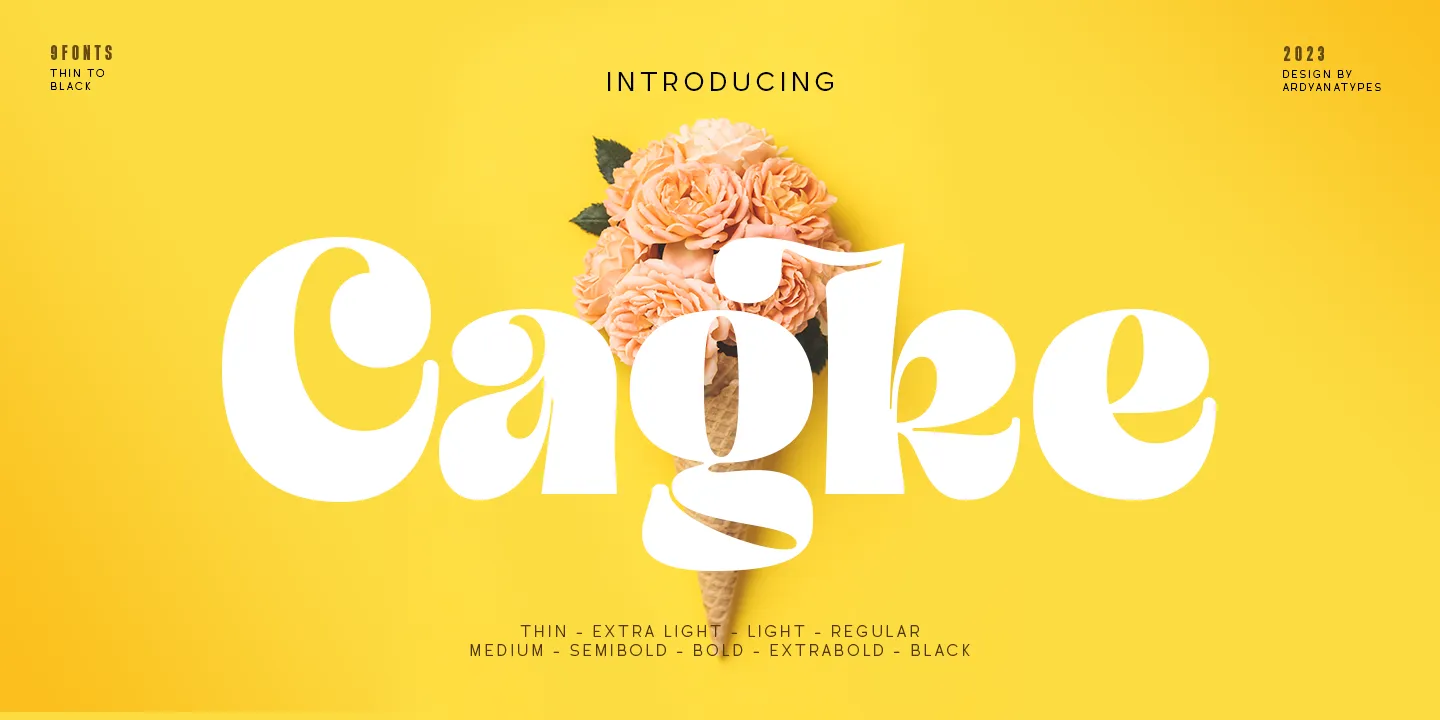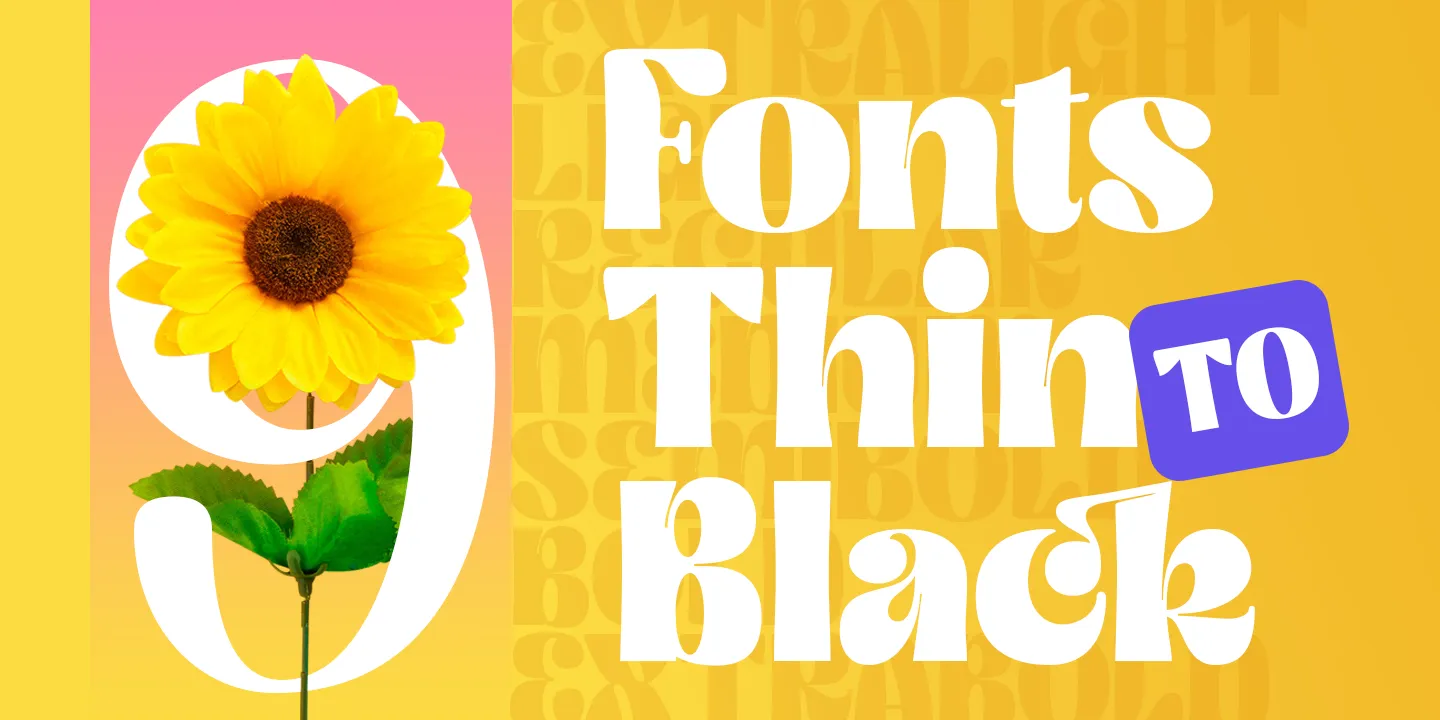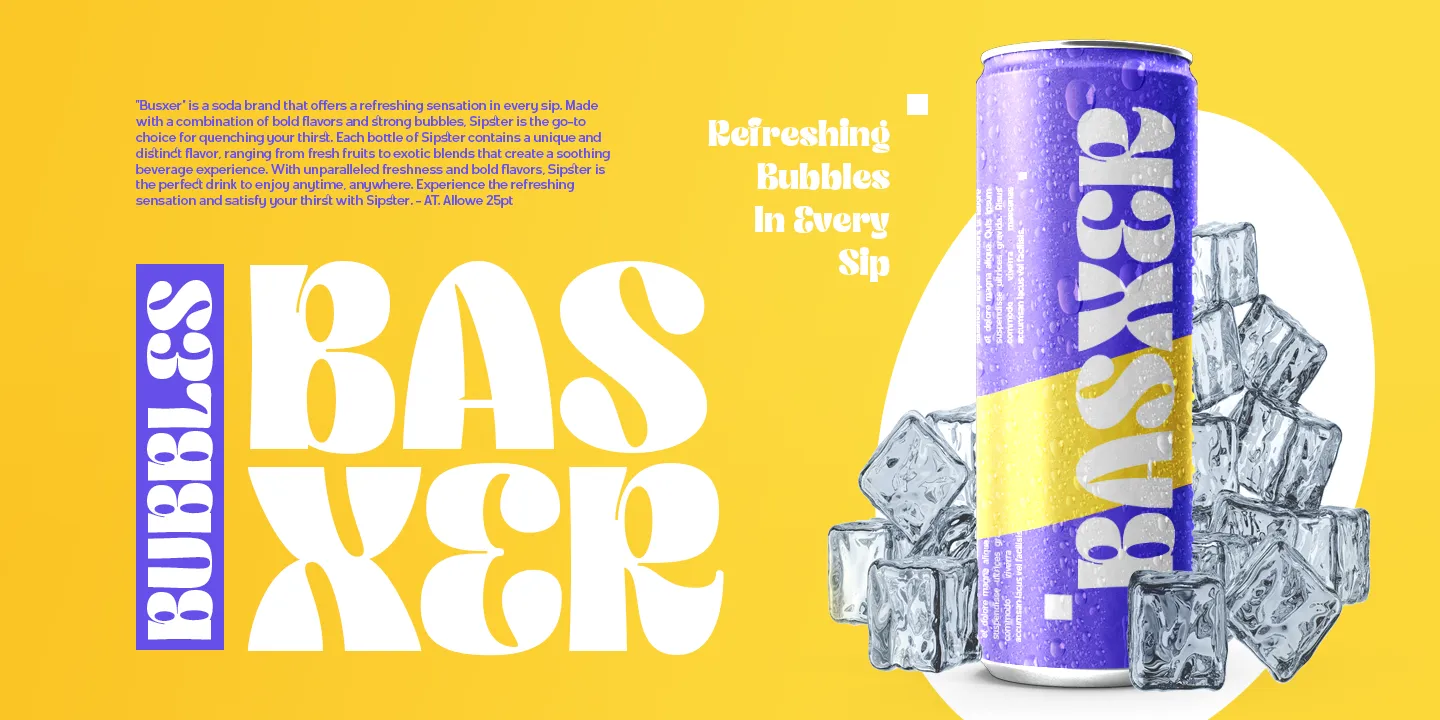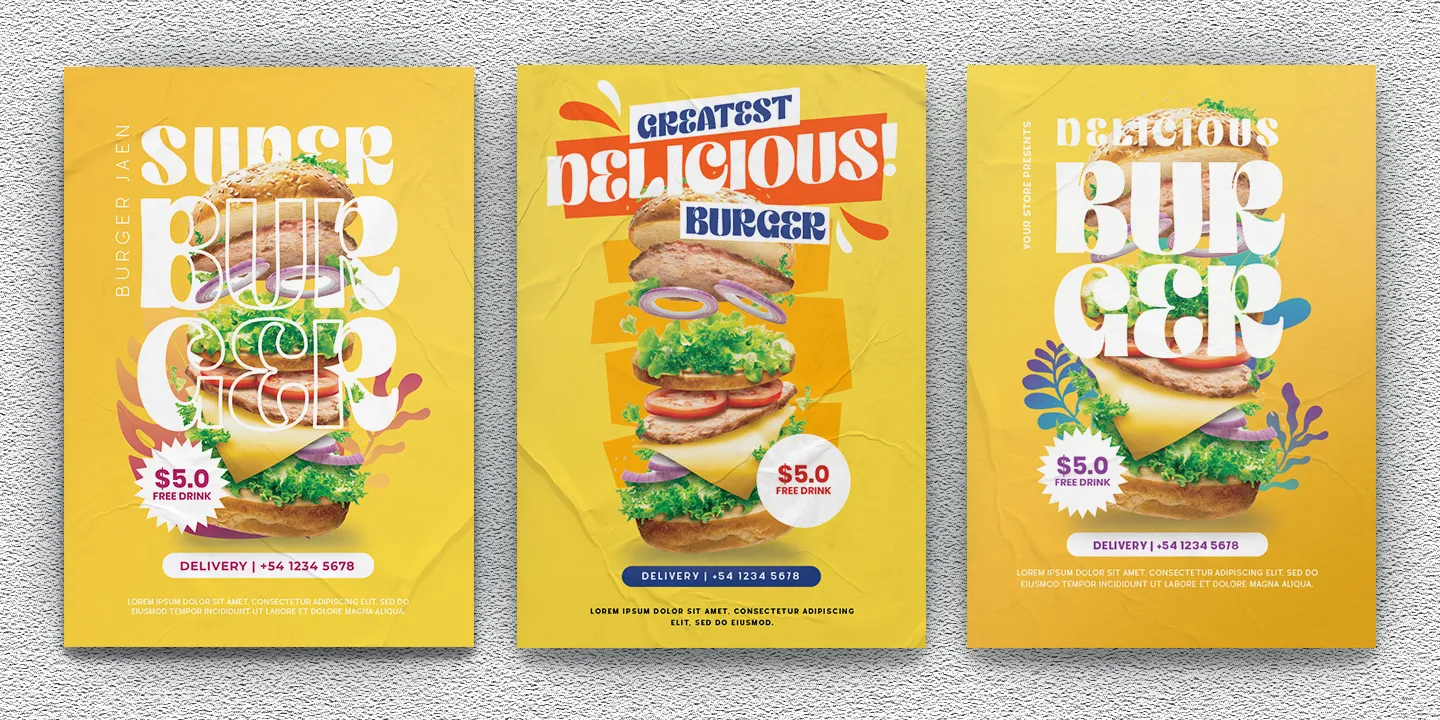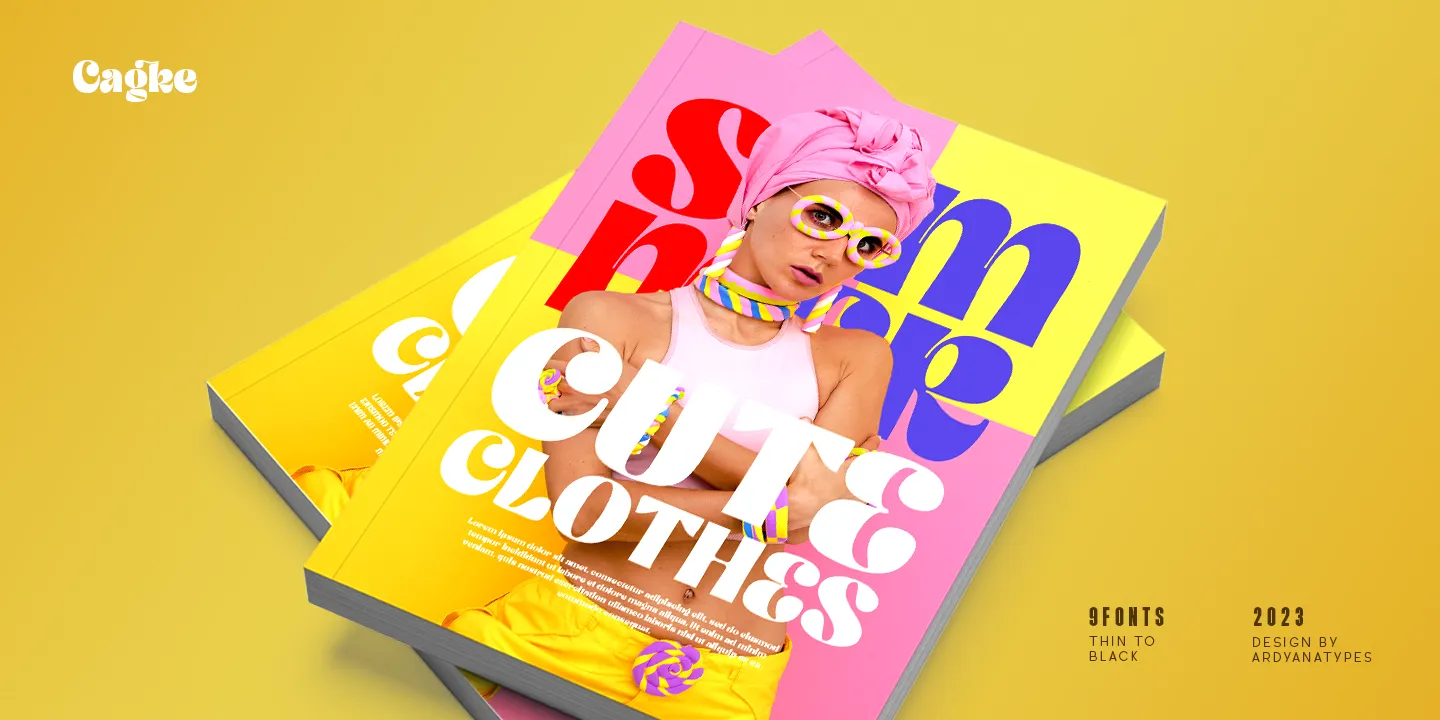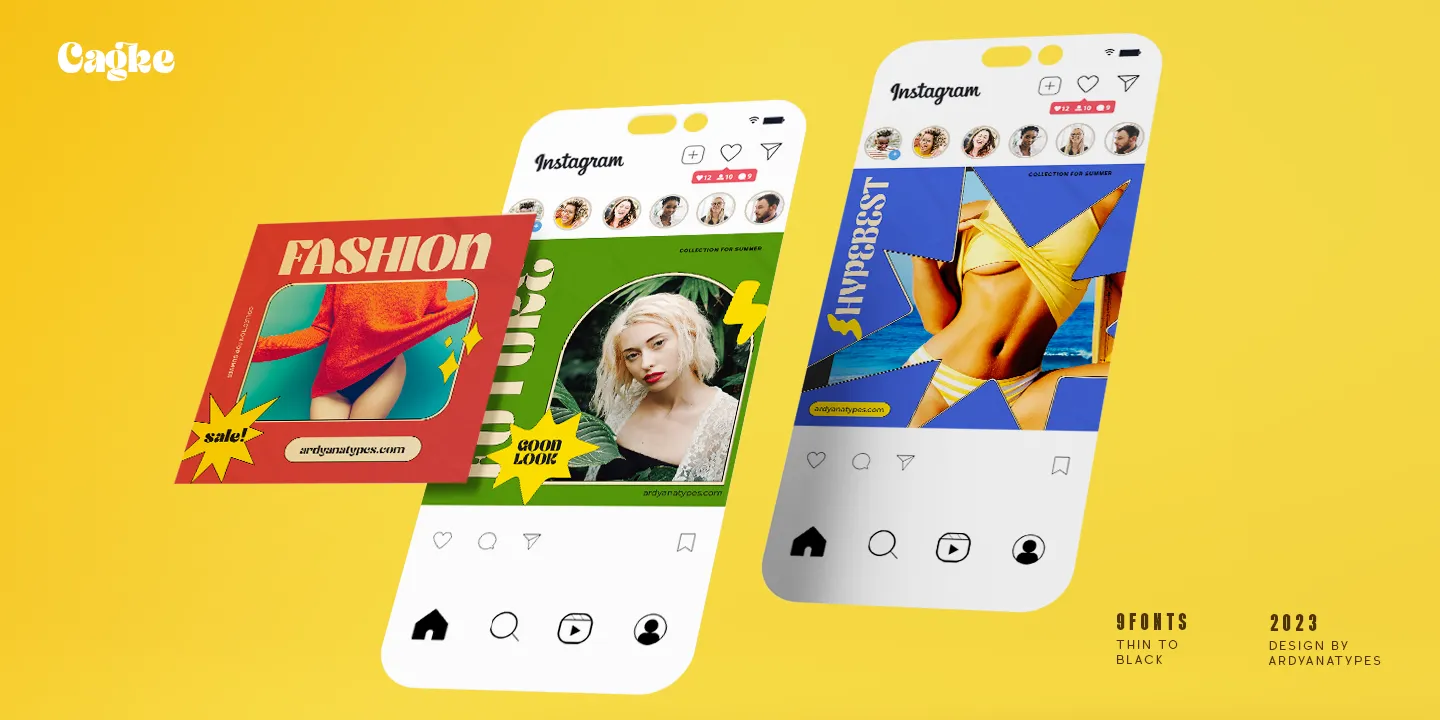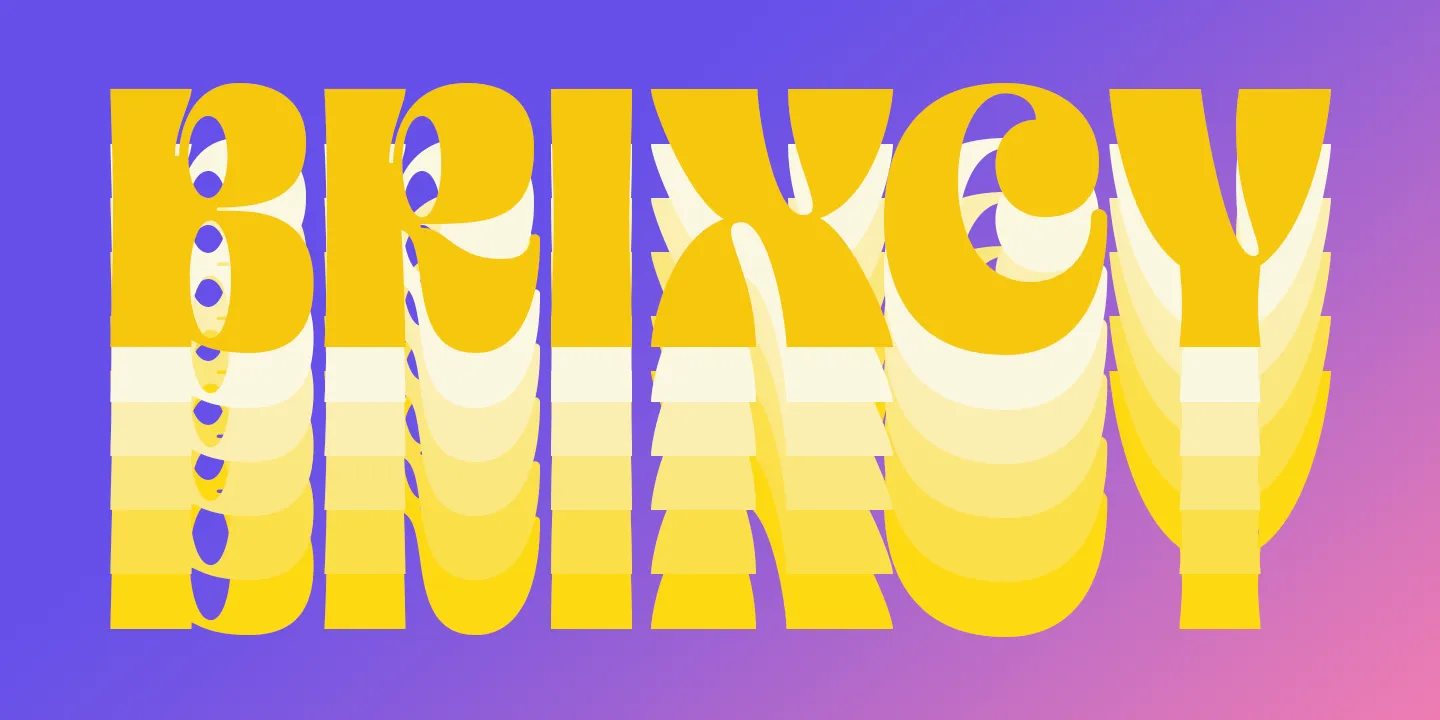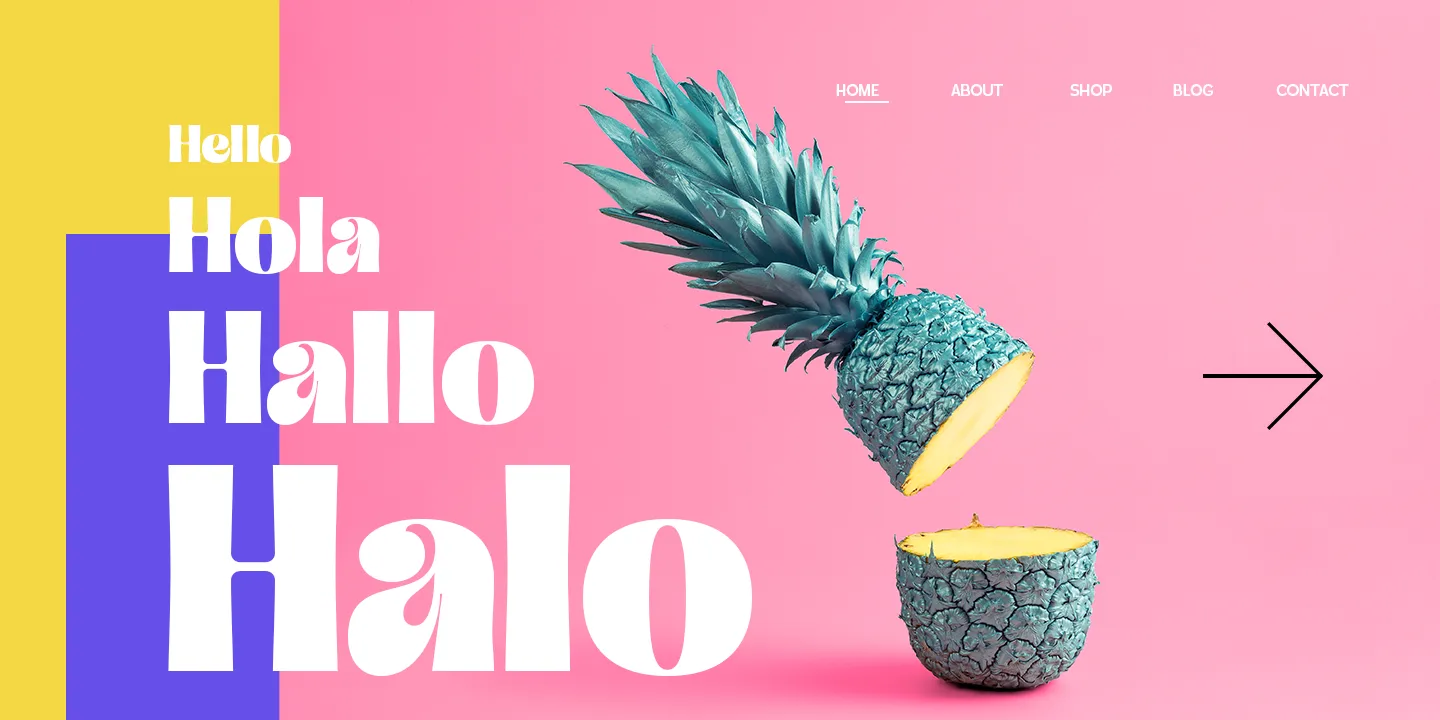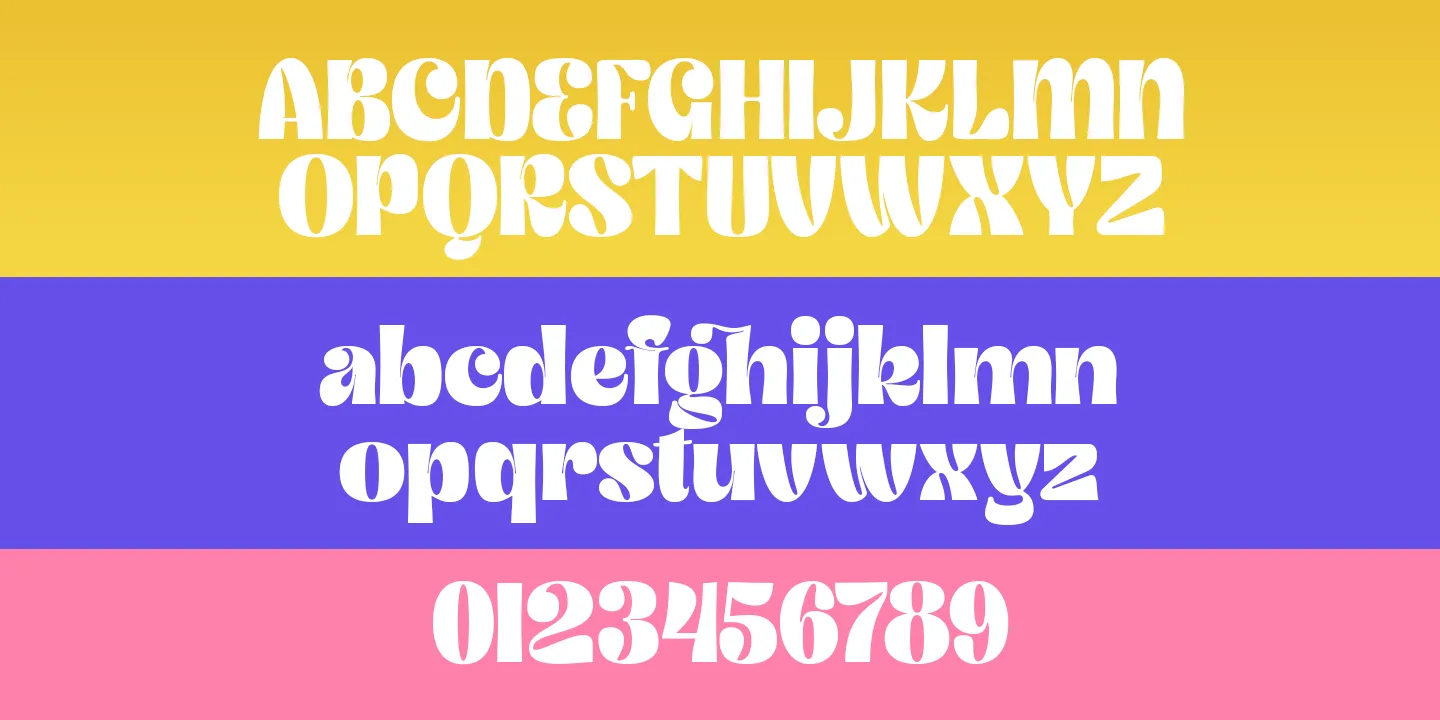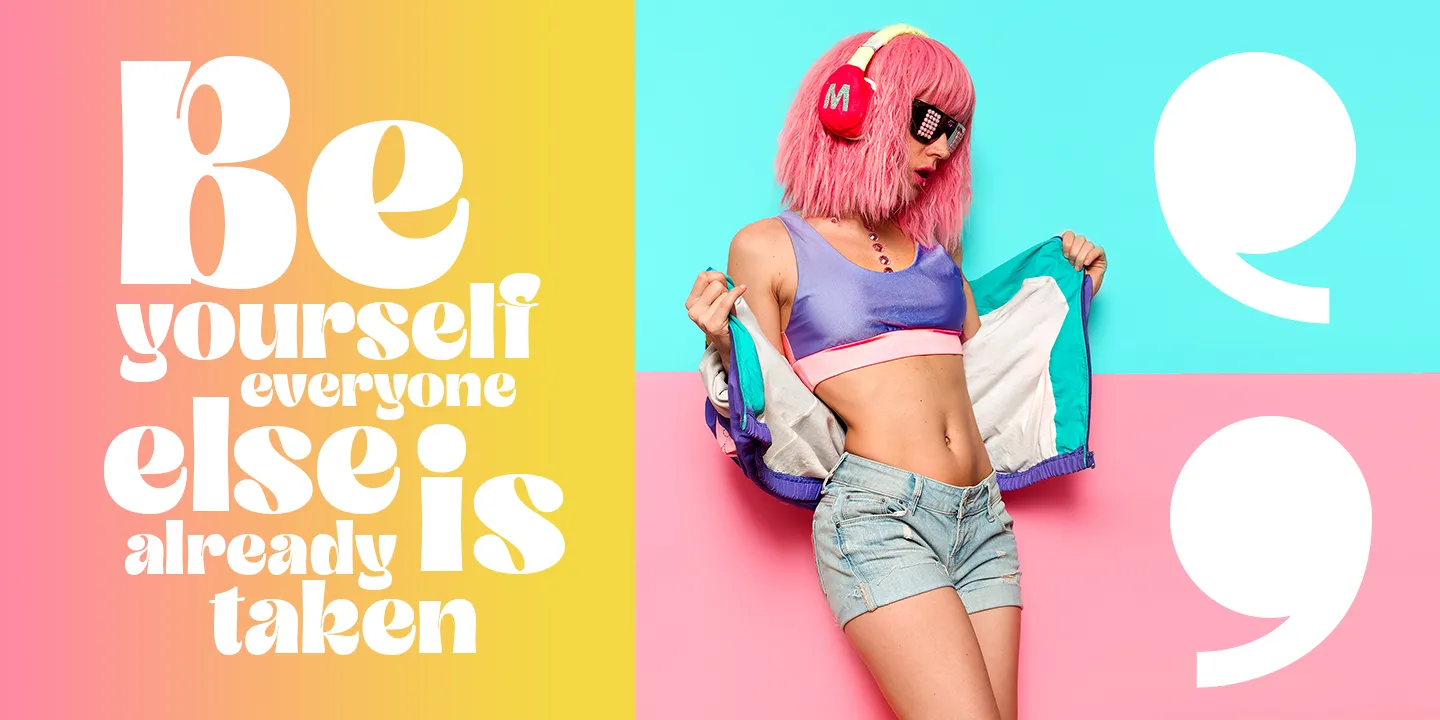
Cagke
9 Styles
Cagke is a font that offers a captivating classic and retro style. With nine weights ranging from thin to Black, Cagke provides flexibility for various design needs.
The main advantage of Cagke is its ability to support multiple languages, making it easily usable worldwide. With the provided OpenType features, Cagke offers additional variations and sensitivity when designing with this font.
Cagke is highly suitable for designs with classic, retro, vintage, modern, or elegant aesthetics. In various projects, including posters, books, magazines, advertisements, and even films, Cagke will provide the perfect touch.
Another advantage of Cagke is its ease of development to meet various design requirements. Classic and retro styles, this font will enrich every design creation you make.
• cb cb
• ch ch
• ck ck
• cl cl
• cm cm
• cn cn
• cp cp
• cr cr
• cu cu
• cy cy
• gb gb
• gh gh
• gk gk
• gl gl
• ib ib
• ih ih
• ik ik
• il il